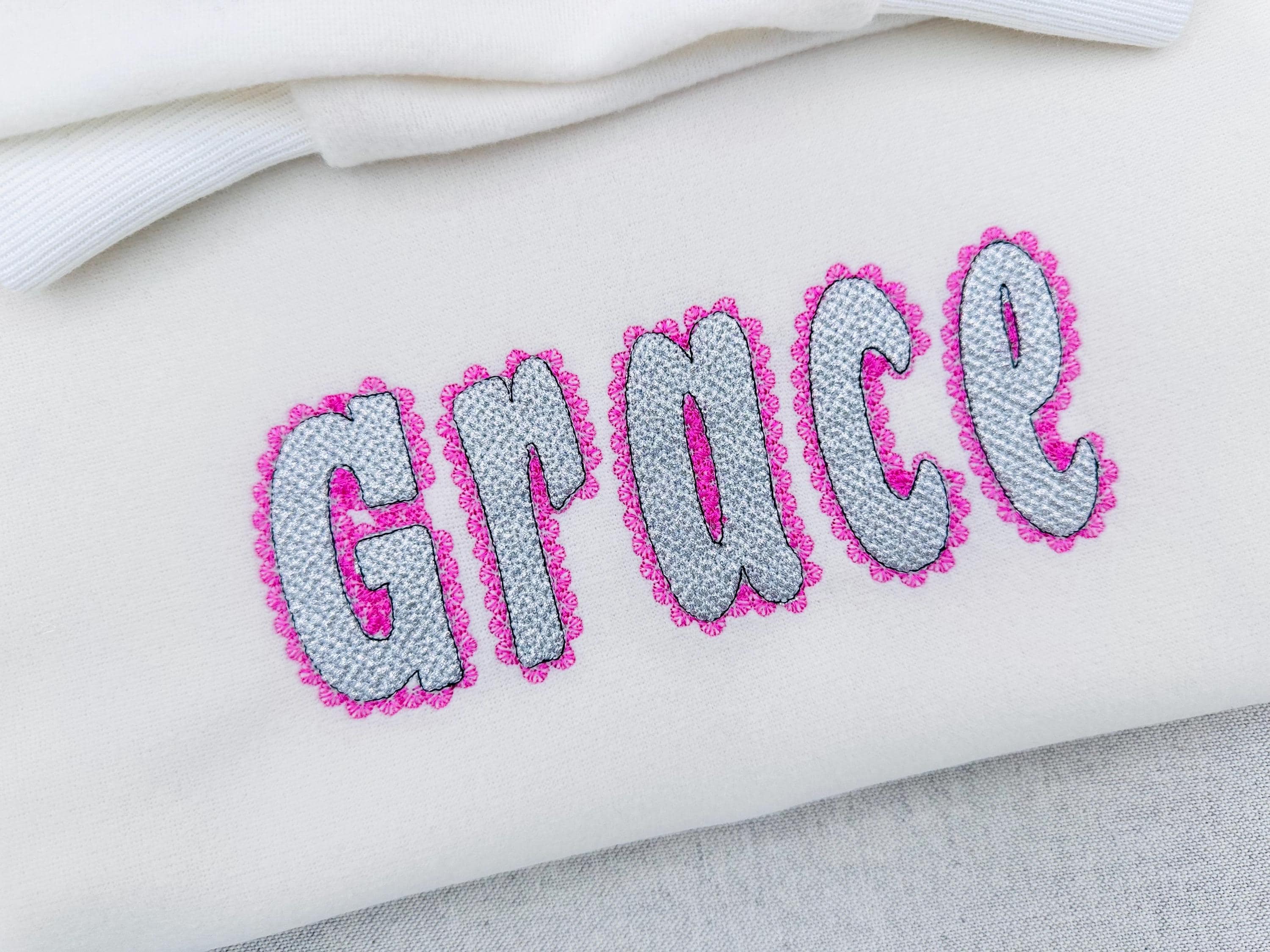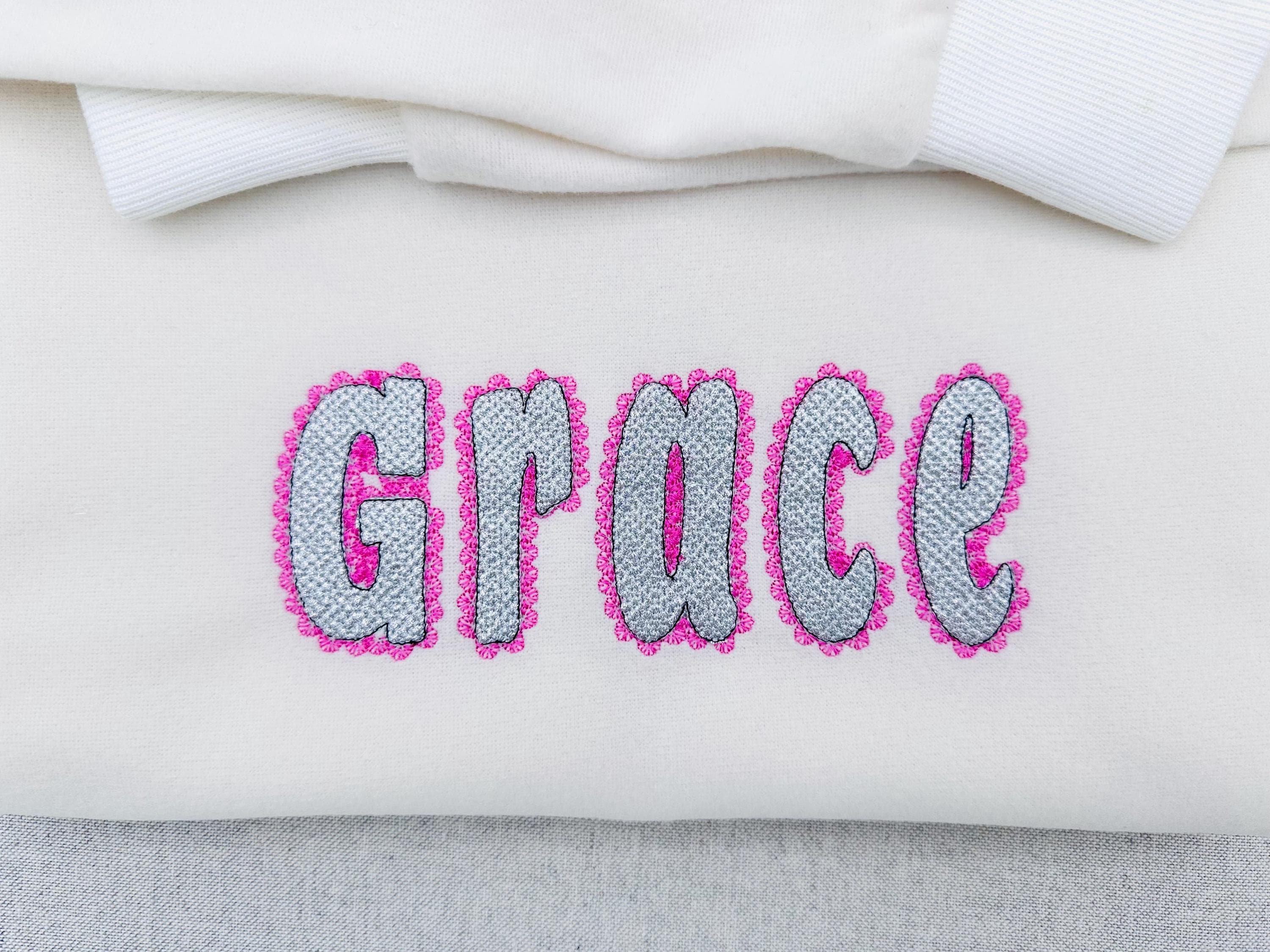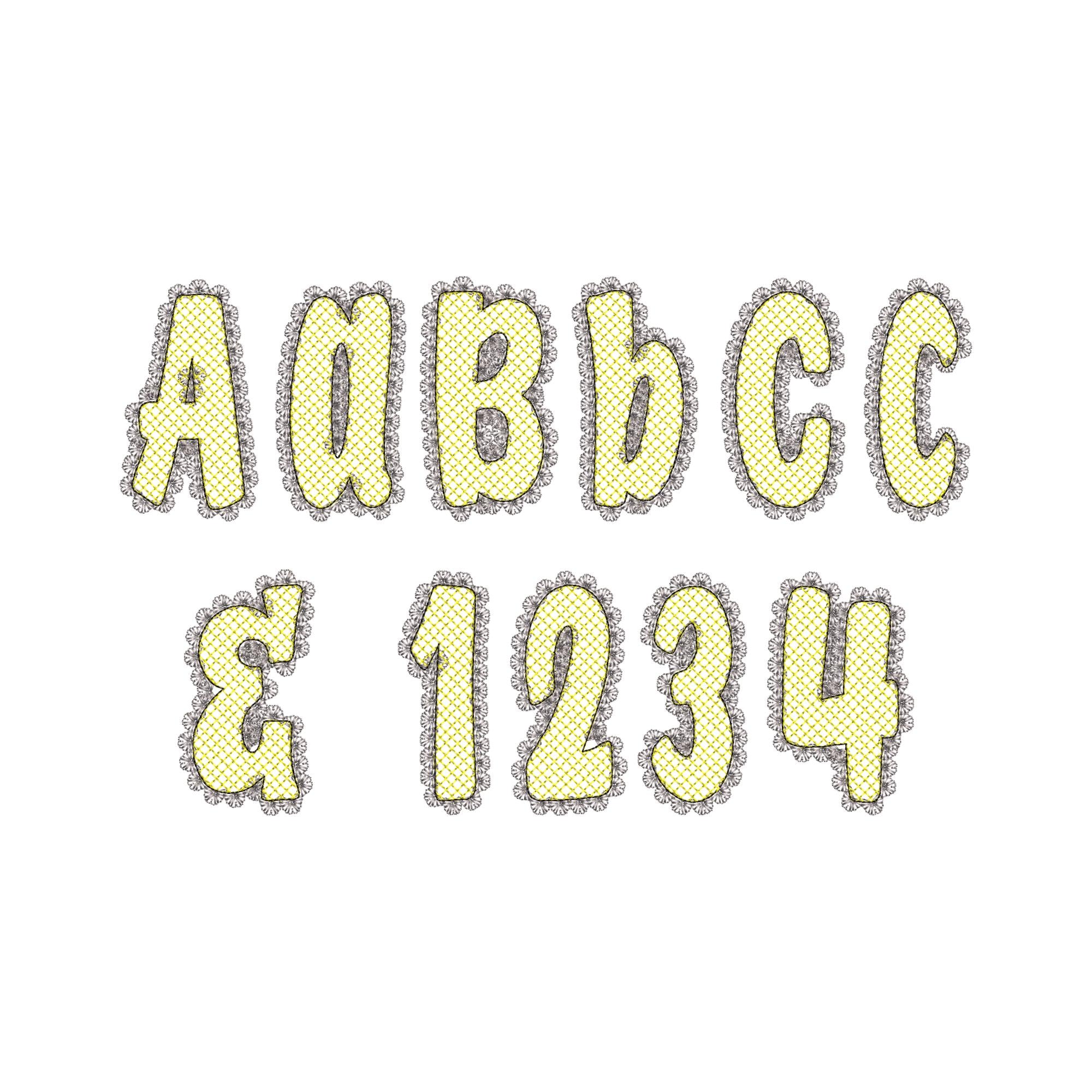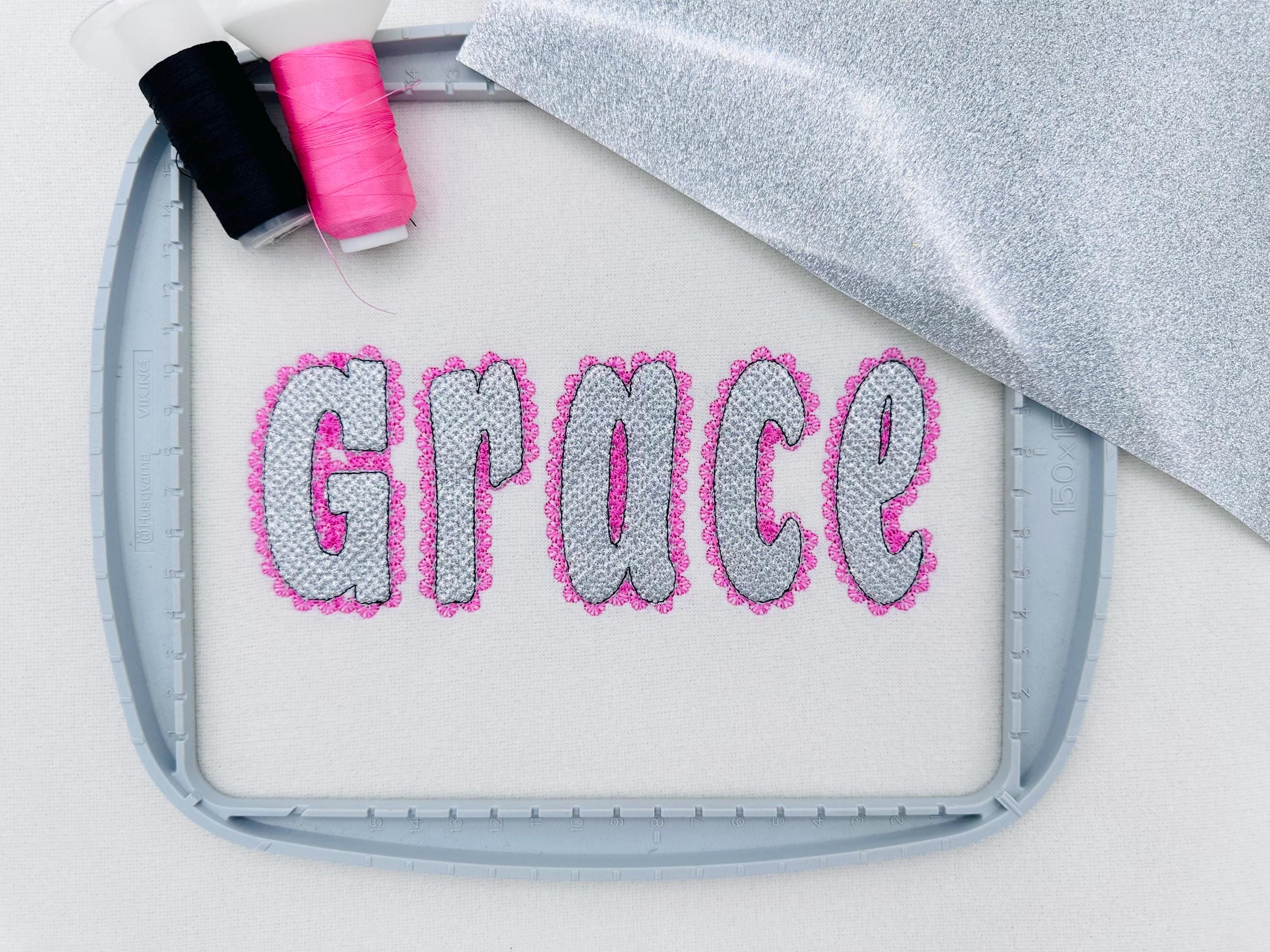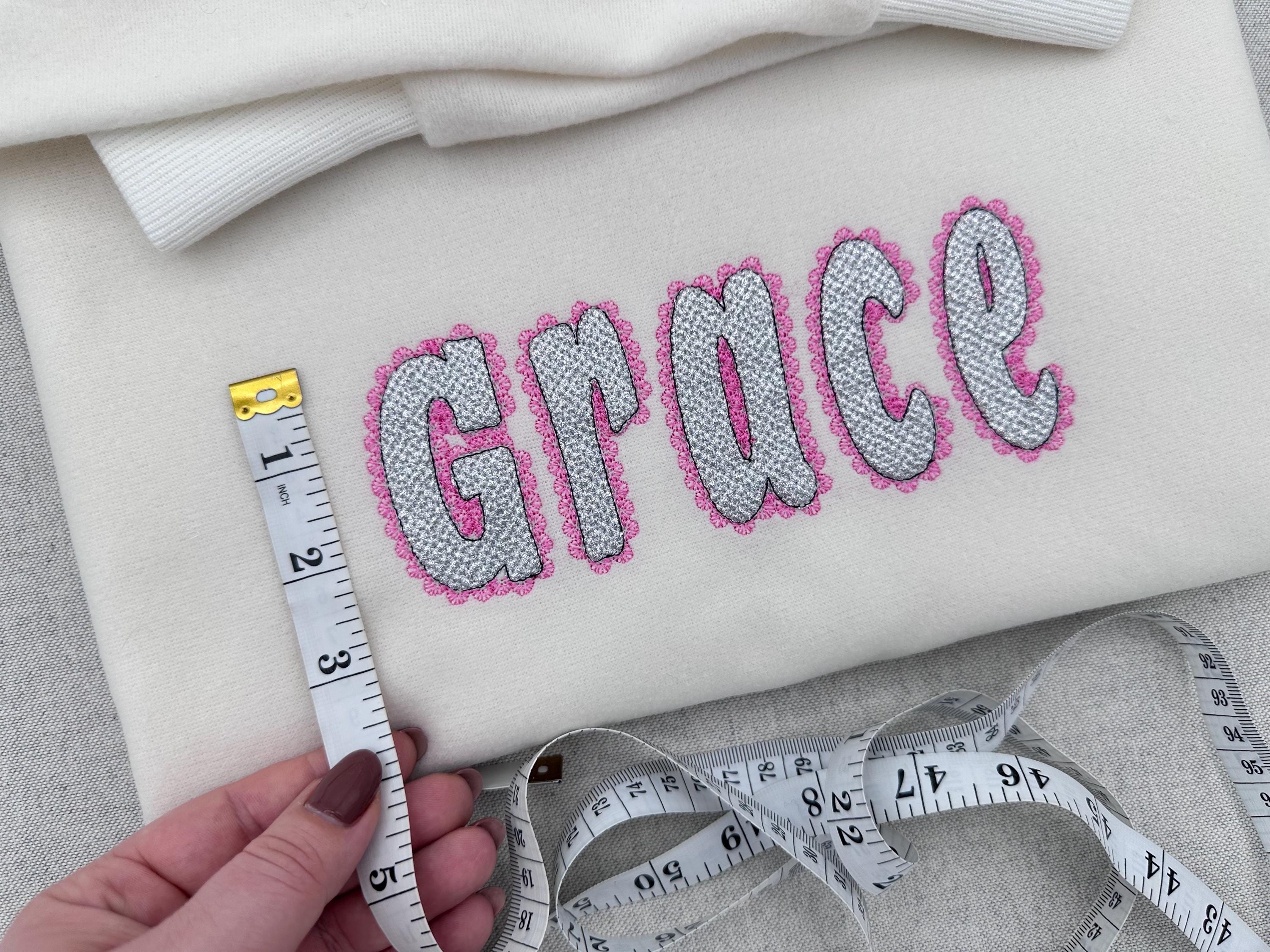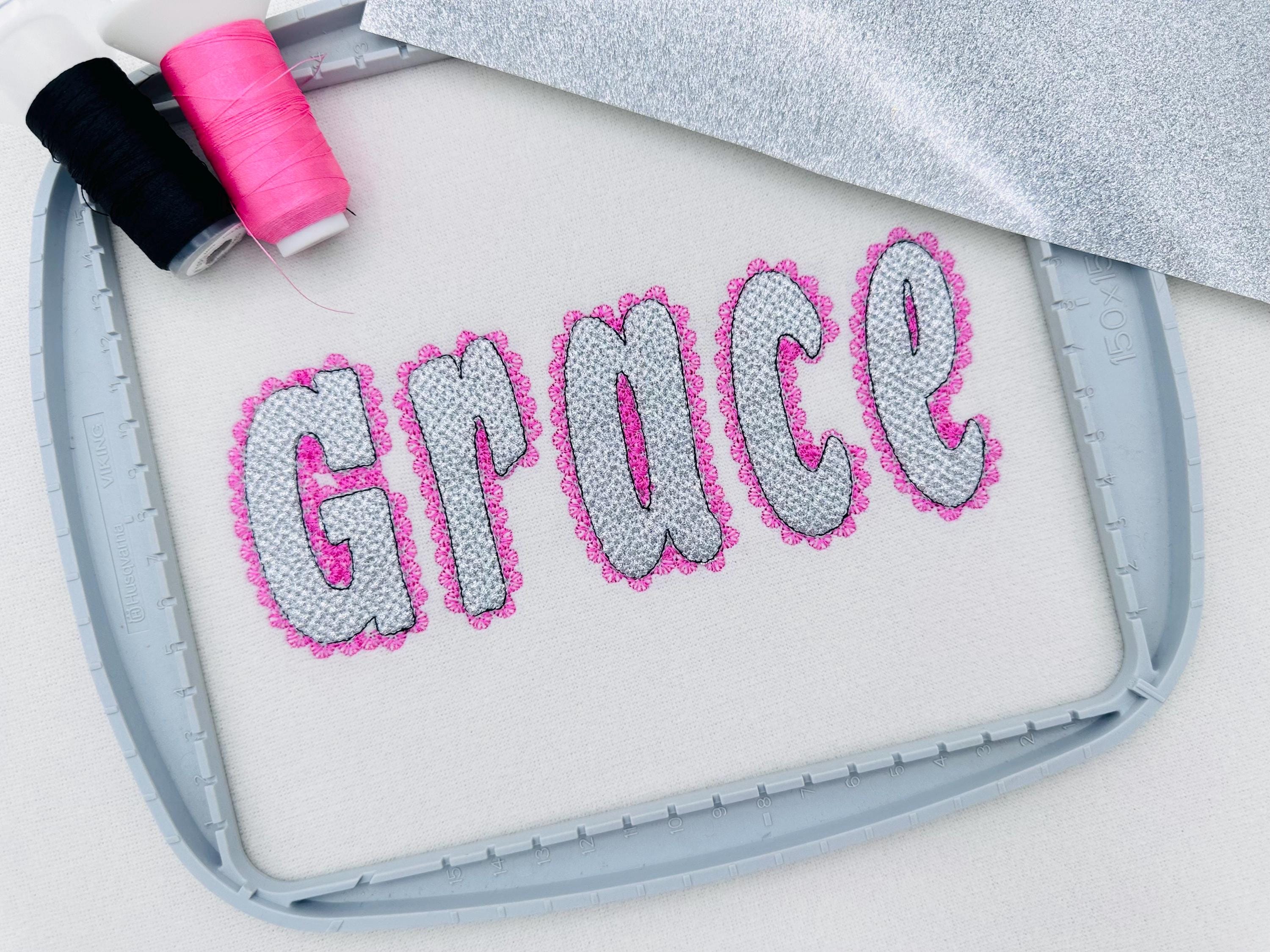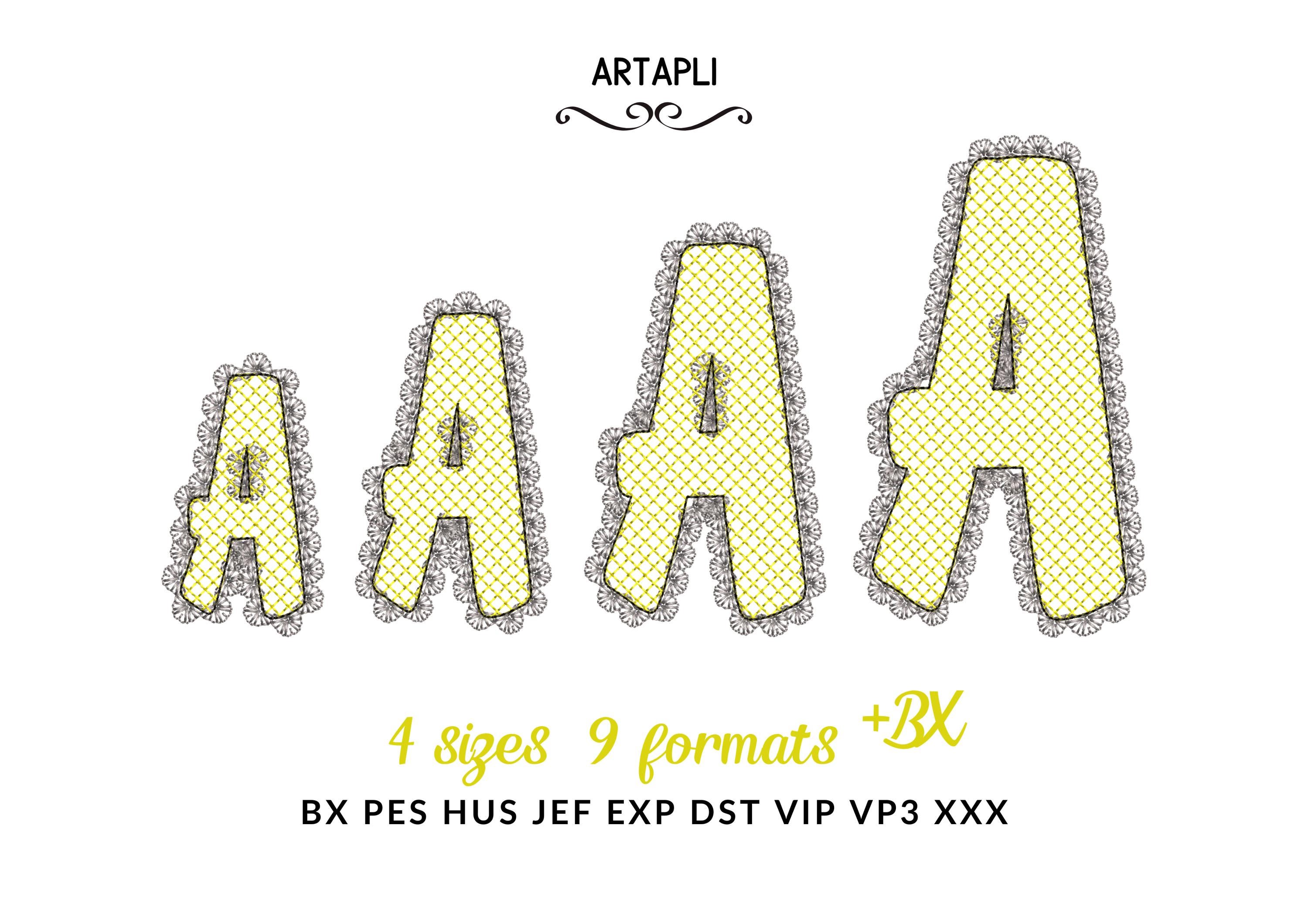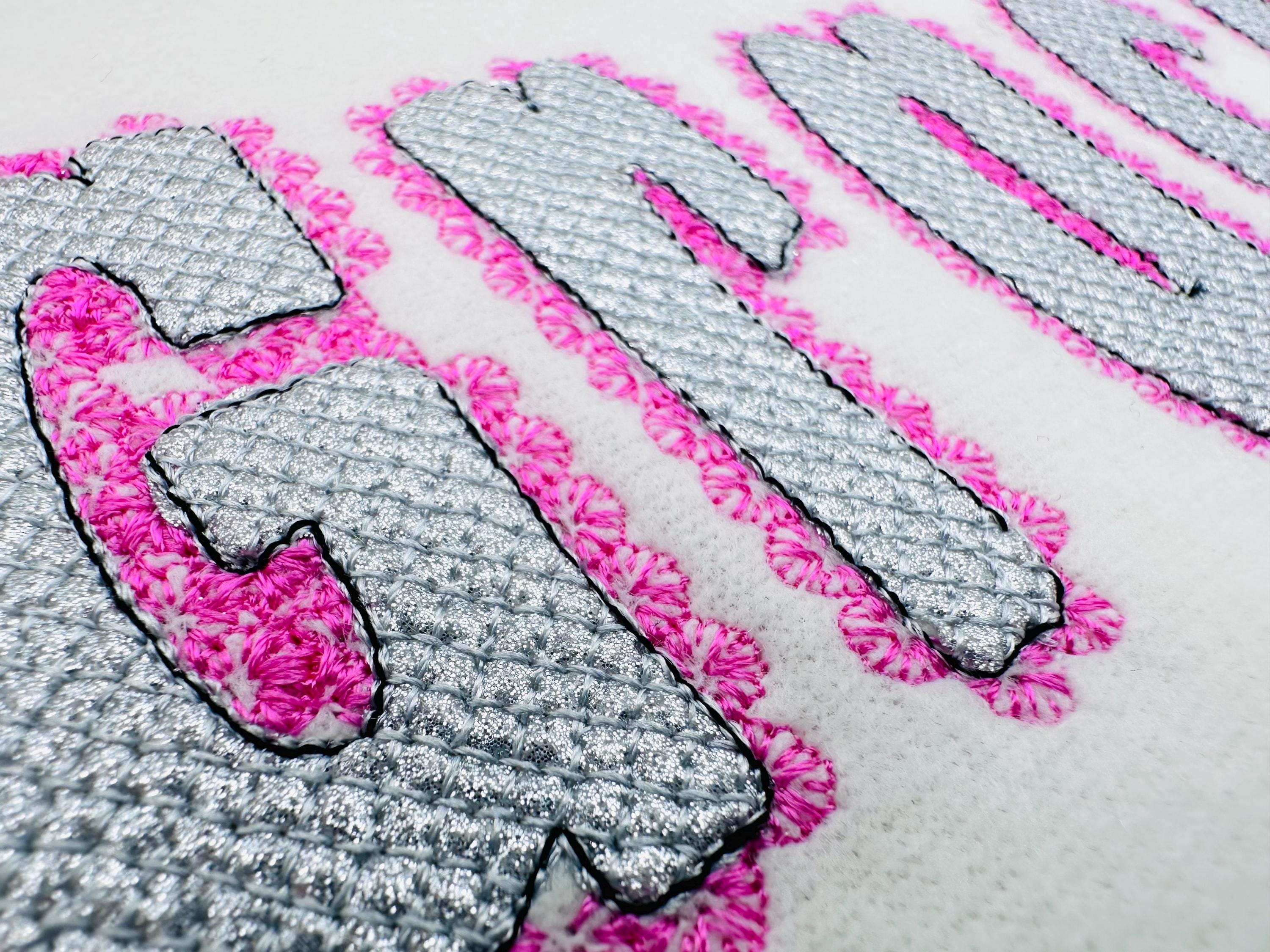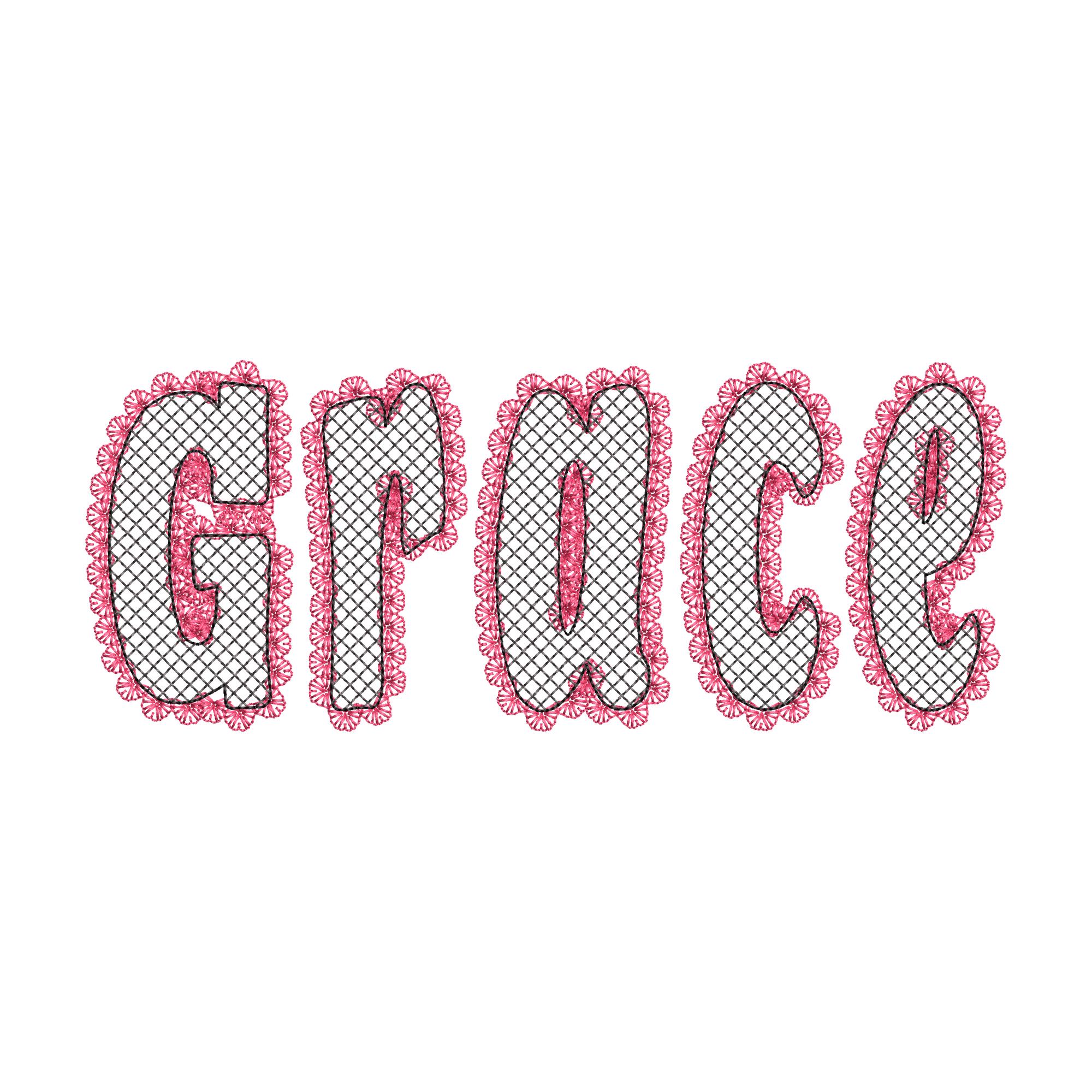
Glitter Twinkle Lace Edge FONT HTV vinyl layer applique sparkle girls Alphabet Monogram machine embroidery designs sizes 2.3 up to 4 inch and BX
Use HTV glitter vinyl with this font. It’s quick and easy to apply and creates a stunning effect.
Lace edge is a part of the design. The background fabric looks through. Stunning effect!